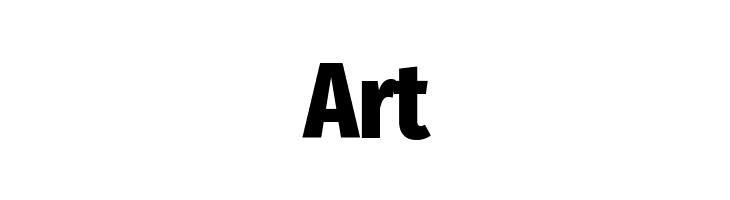
A clean, modern sans-serif font with a minimalist design.
A modern, italic sans-serif font with light weight and low contrast.
A bold, extra-condensed sans-serif font with a modern and impactful style.
A bold, extra-condensed italic font with high contrast and modern appeal.
A bold, extra-condensed sans-serif font with a modern and impactful style.
A modern, extra-condensed, bold italic sans-serif font with tight spacing.
A bold, extra-condensed sans-serif font with strong visual impact.
A modern, extra-bold, italic, and extra-condensed sans-serif font with high contrast.
A modern, extra-condensed sans-serif font with an elegant, extra-light weight.
A sleek, extra-condensed, extra-light italic font with a modern and elegant style.